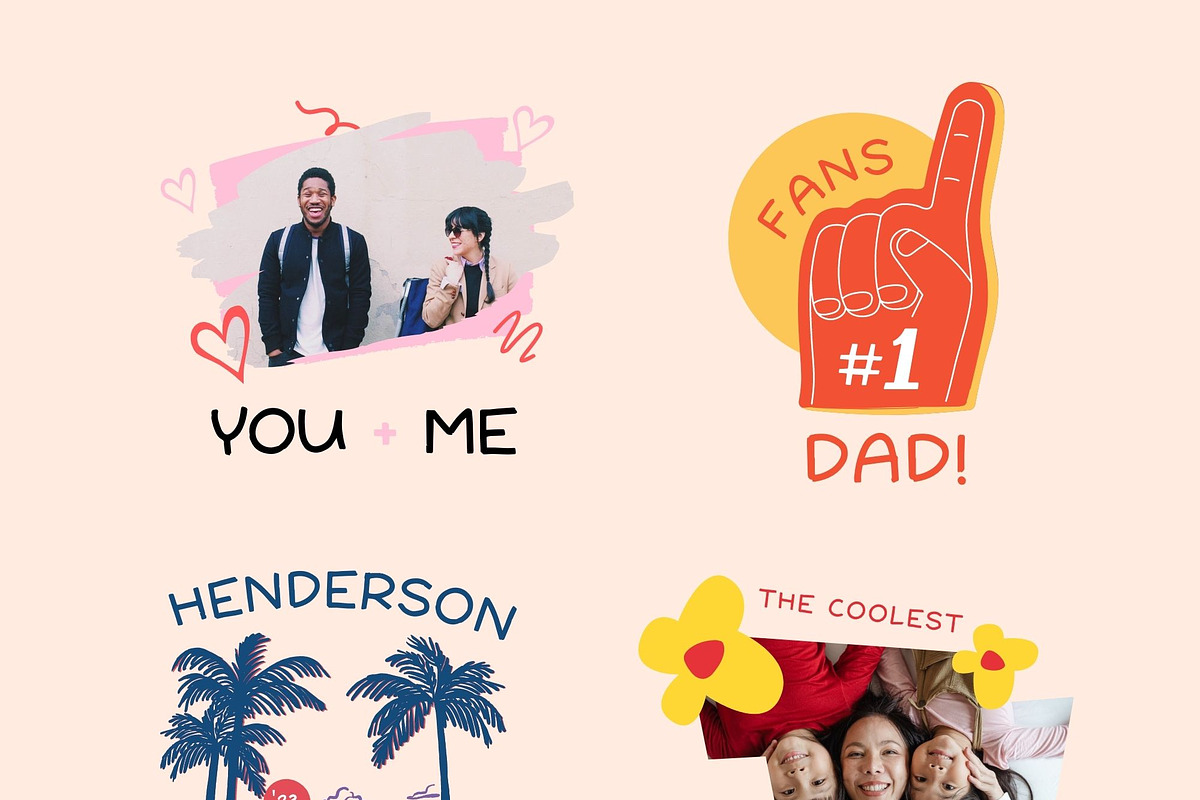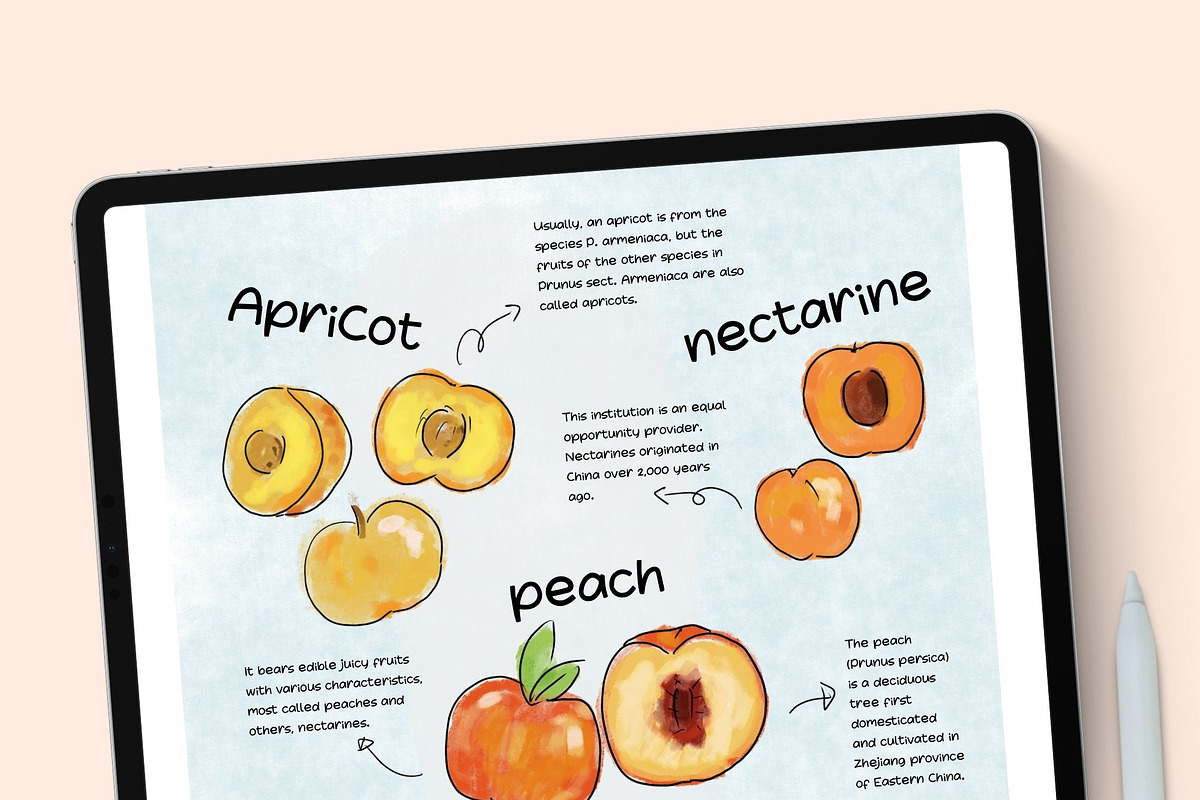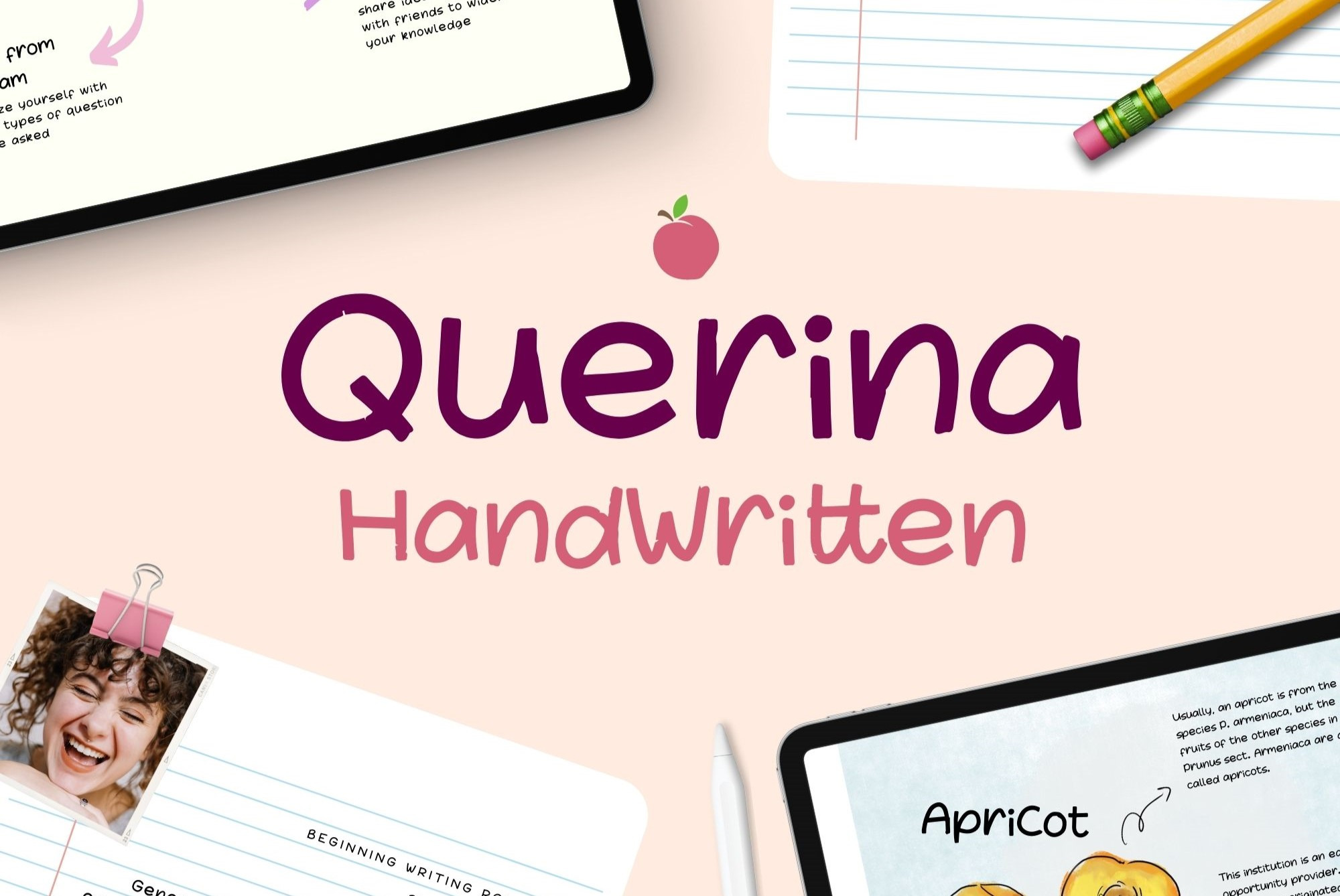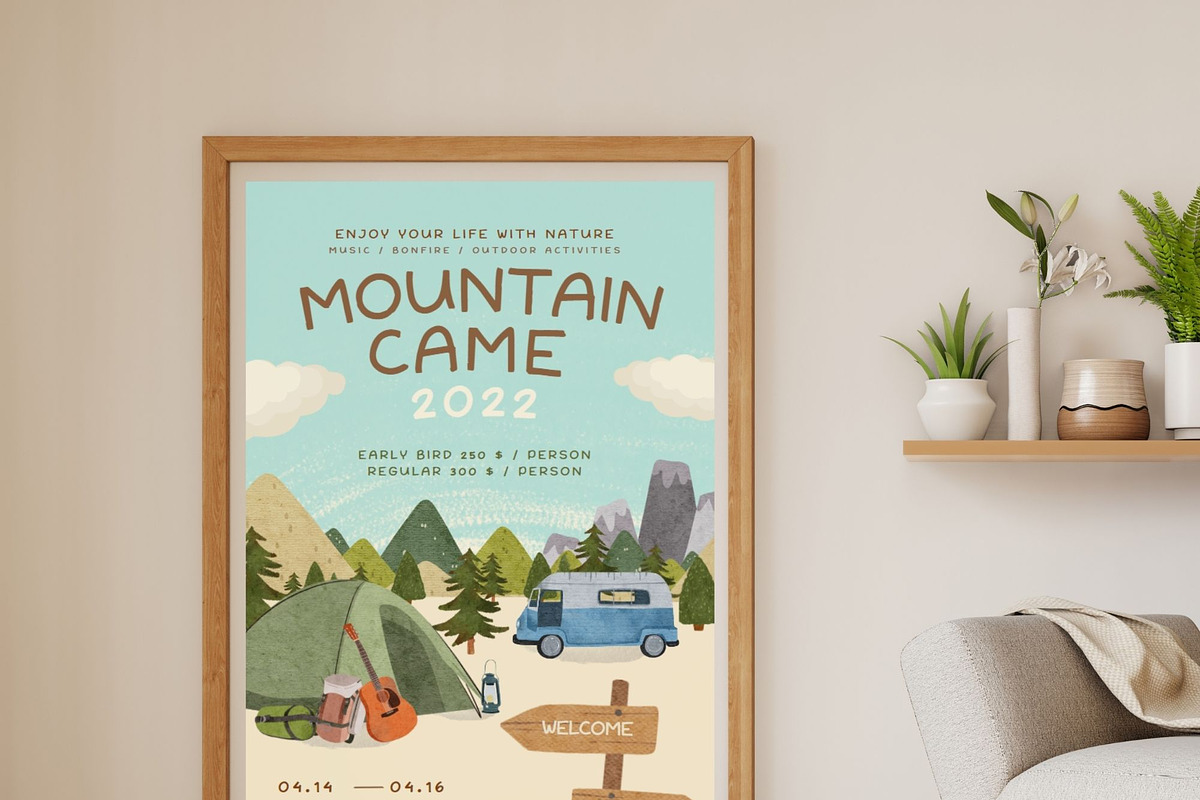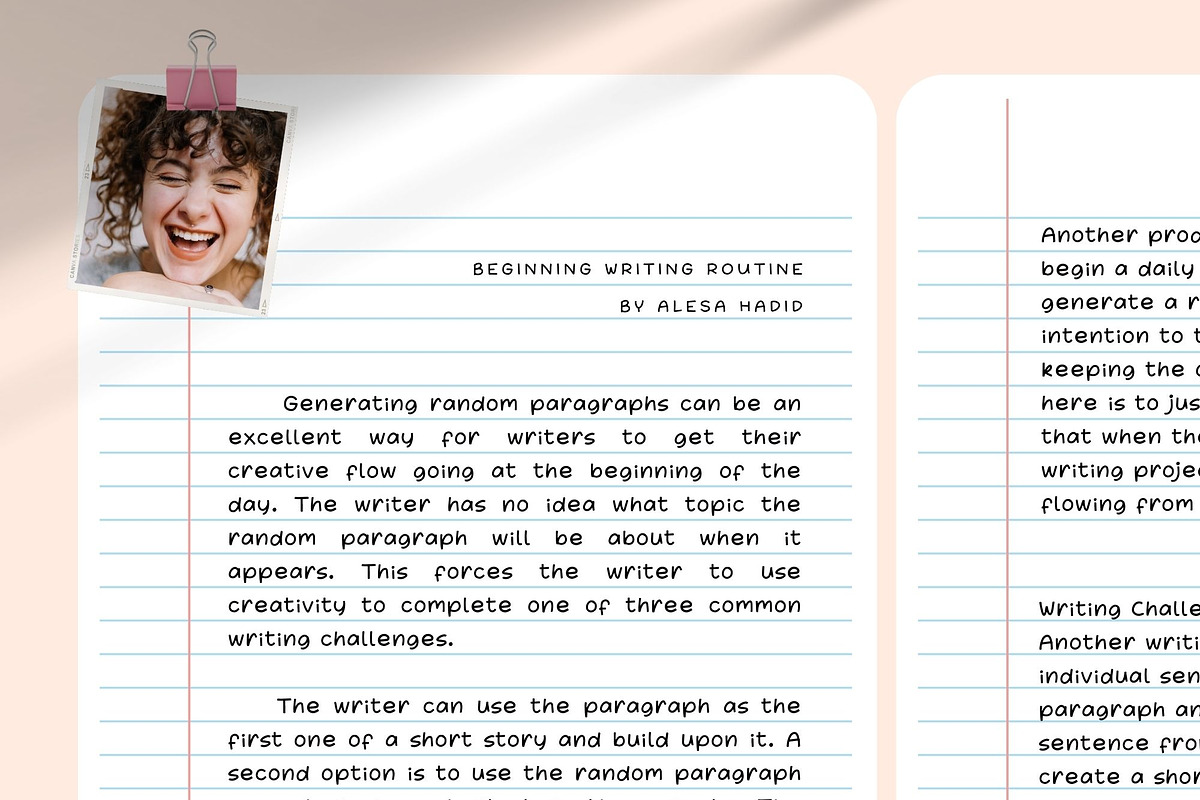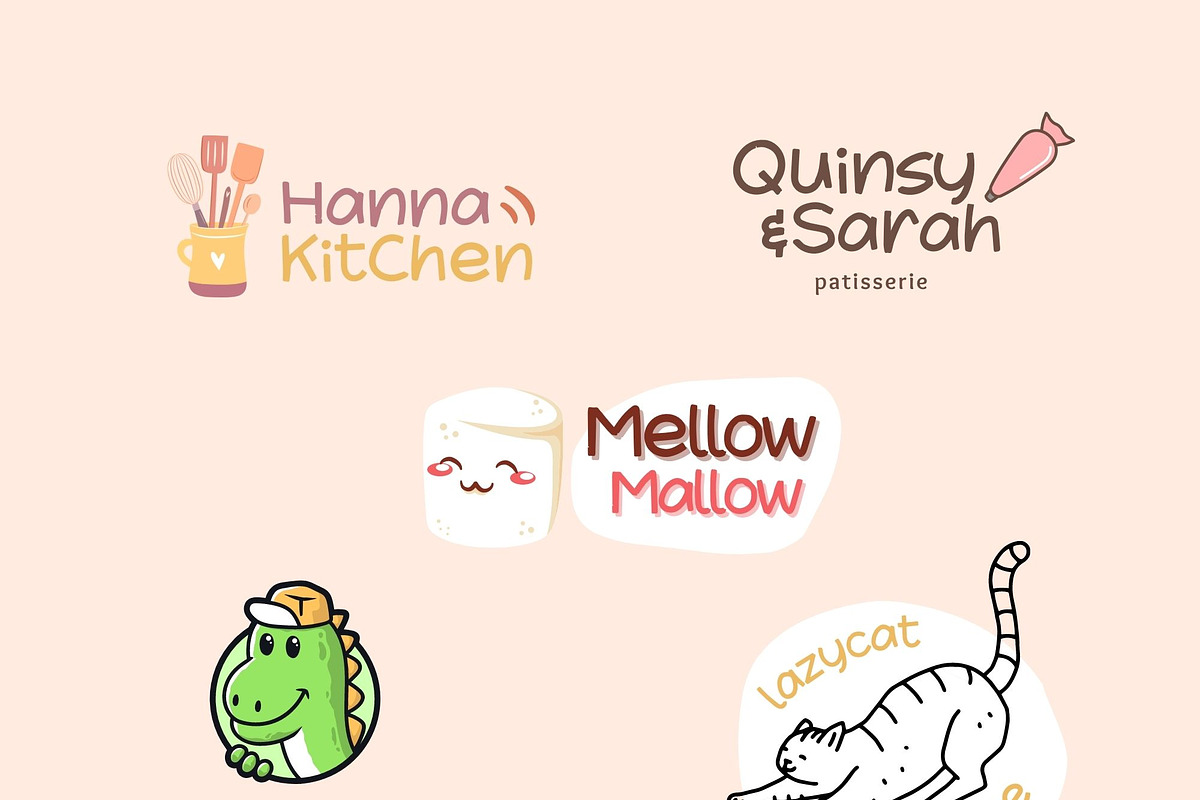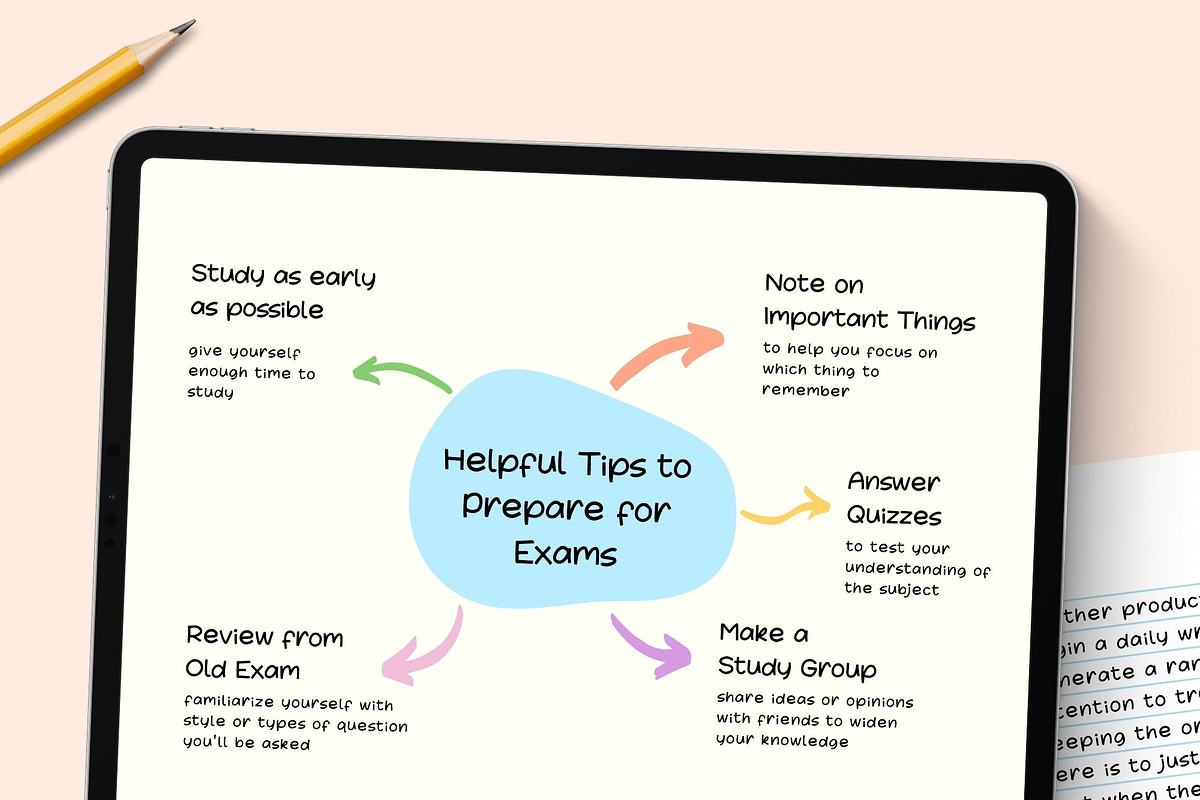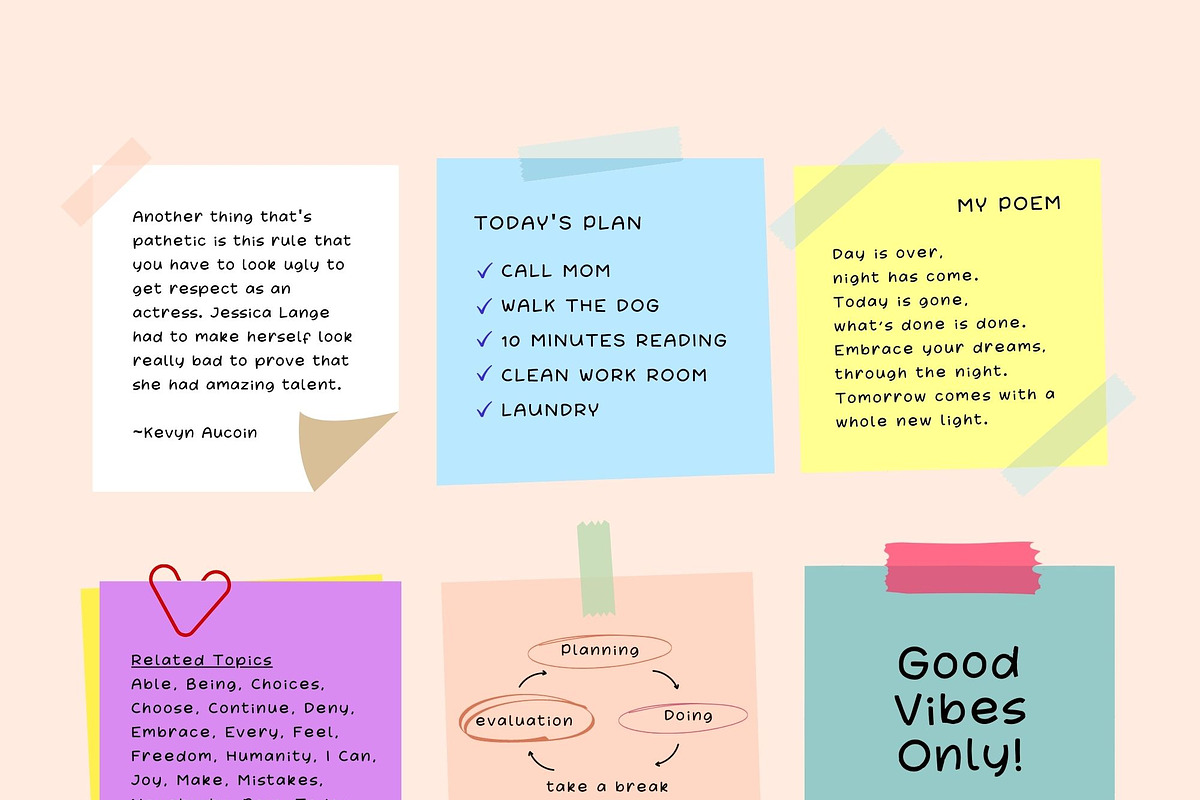
Querina - Cute Handwritten Font
Introducing Querina a Handwritten Font with a sweet, simple style, and suitable for many of your needs. From writing nice notes, cute logos, cool posters & merchandise, greeting cards, this simple handwriting font will instantly become your fave!
Check the previews, and you'll see how flexible this font can be. Look attractive for displays, neat and fun for paragraphs, and still have a strong character for posters and logos.